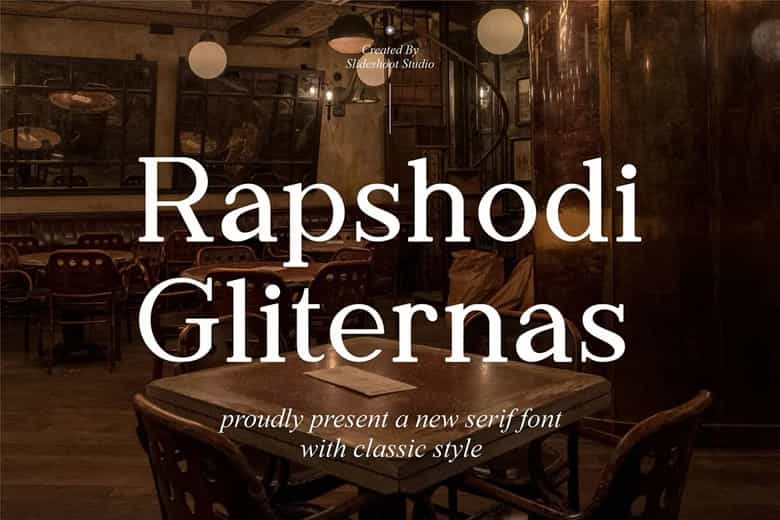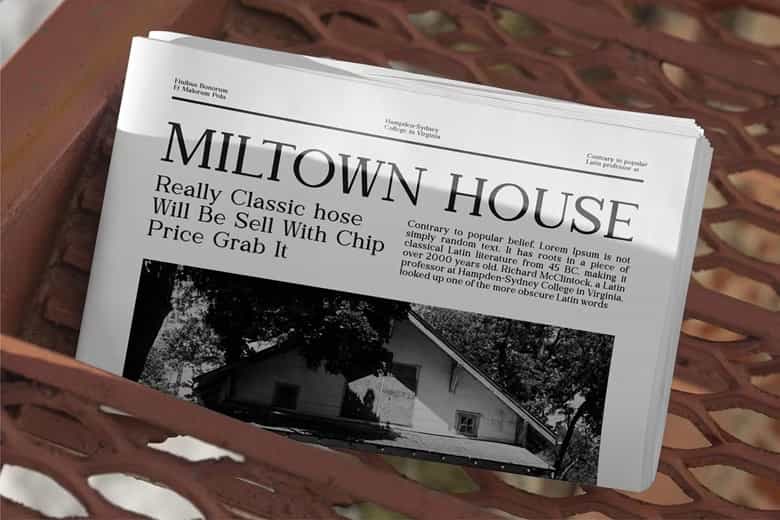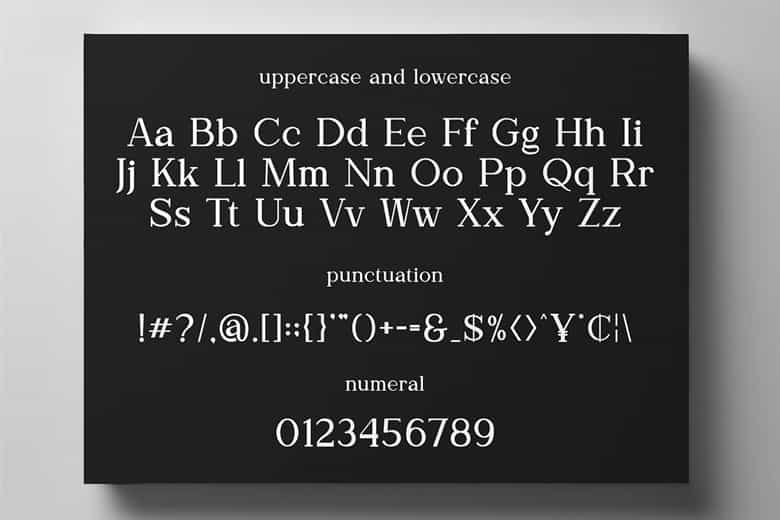
Raphsodi Gliternas is a new serif font with a classic style, trendy, bouncy and cute display font release. From its layout to the design elements, it has a specific ambiance of a place which is related to woods. This is very useful when applying it in the creation of invitation card designs, company logos, movie title and names, business cards, book title, brand name and many other designs.